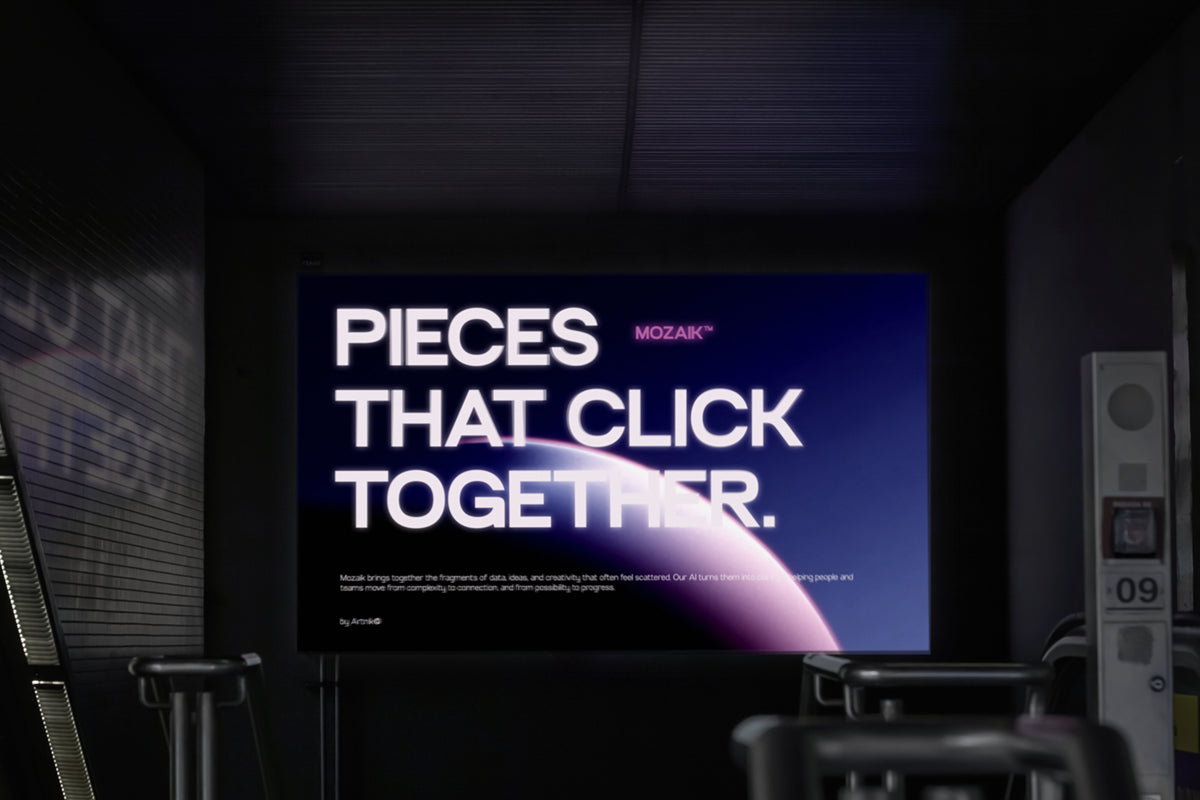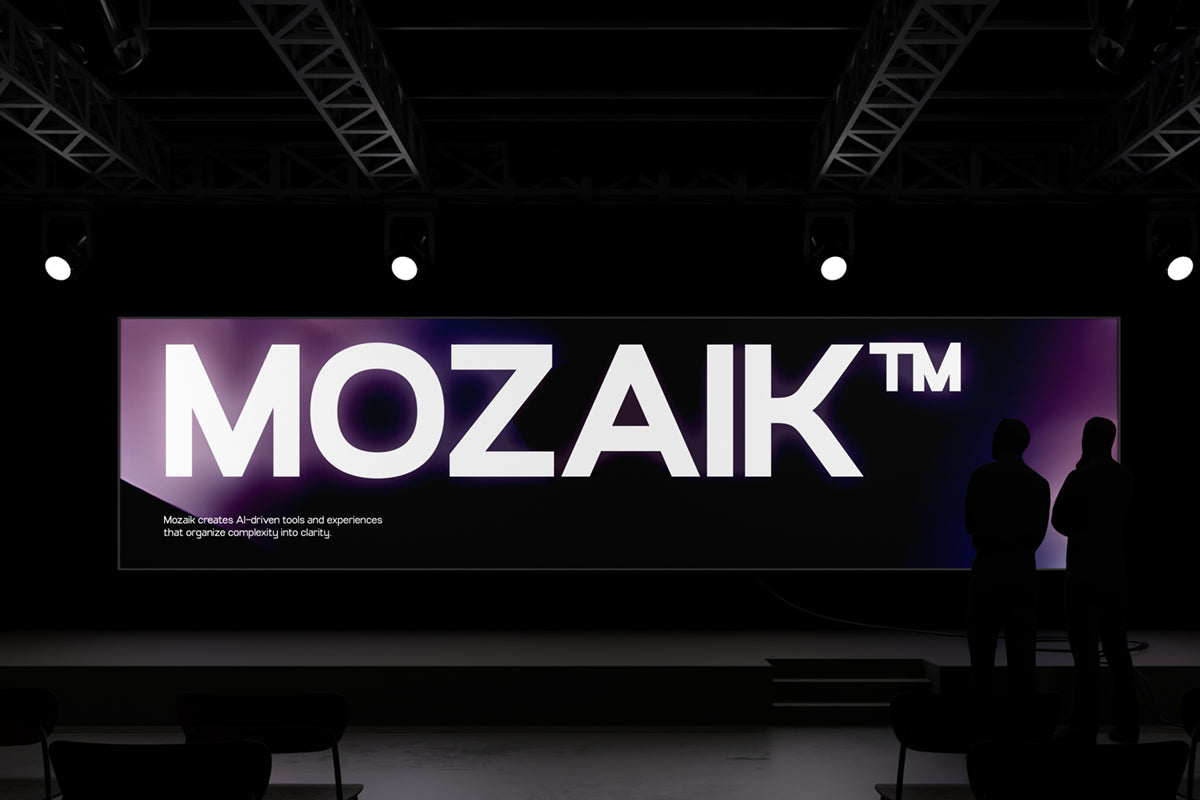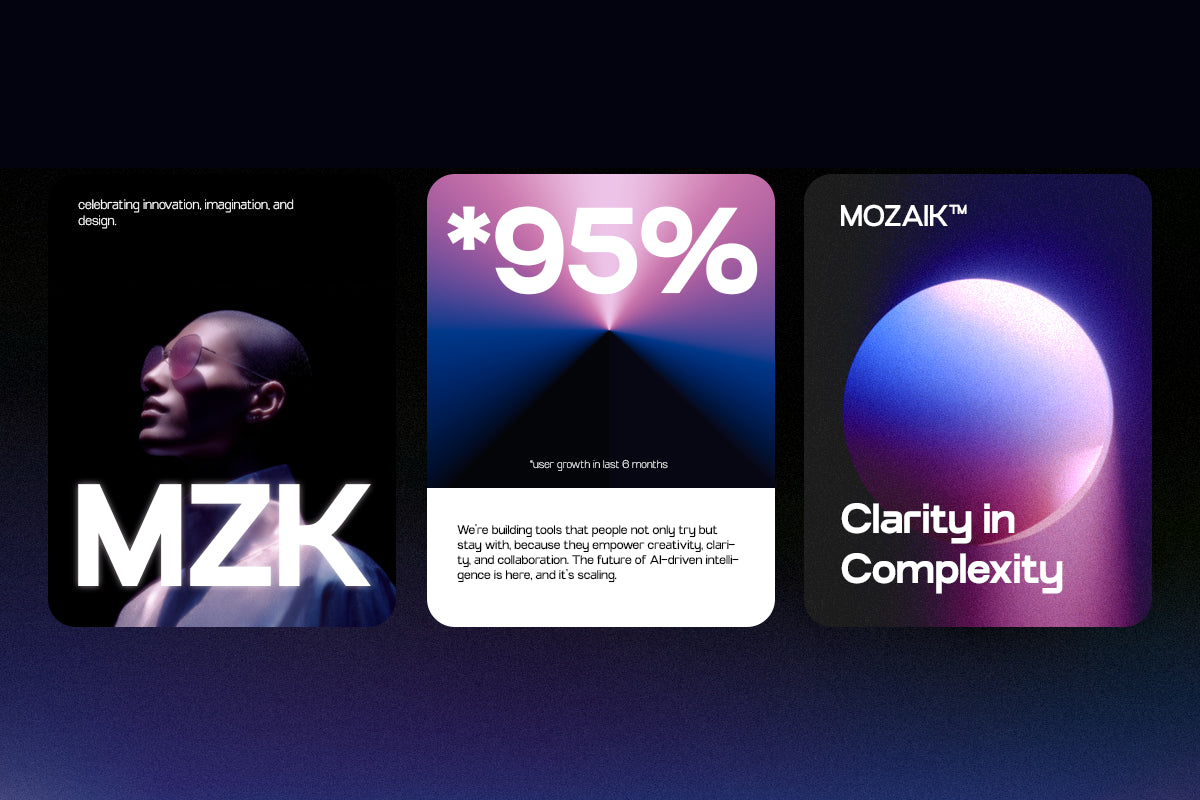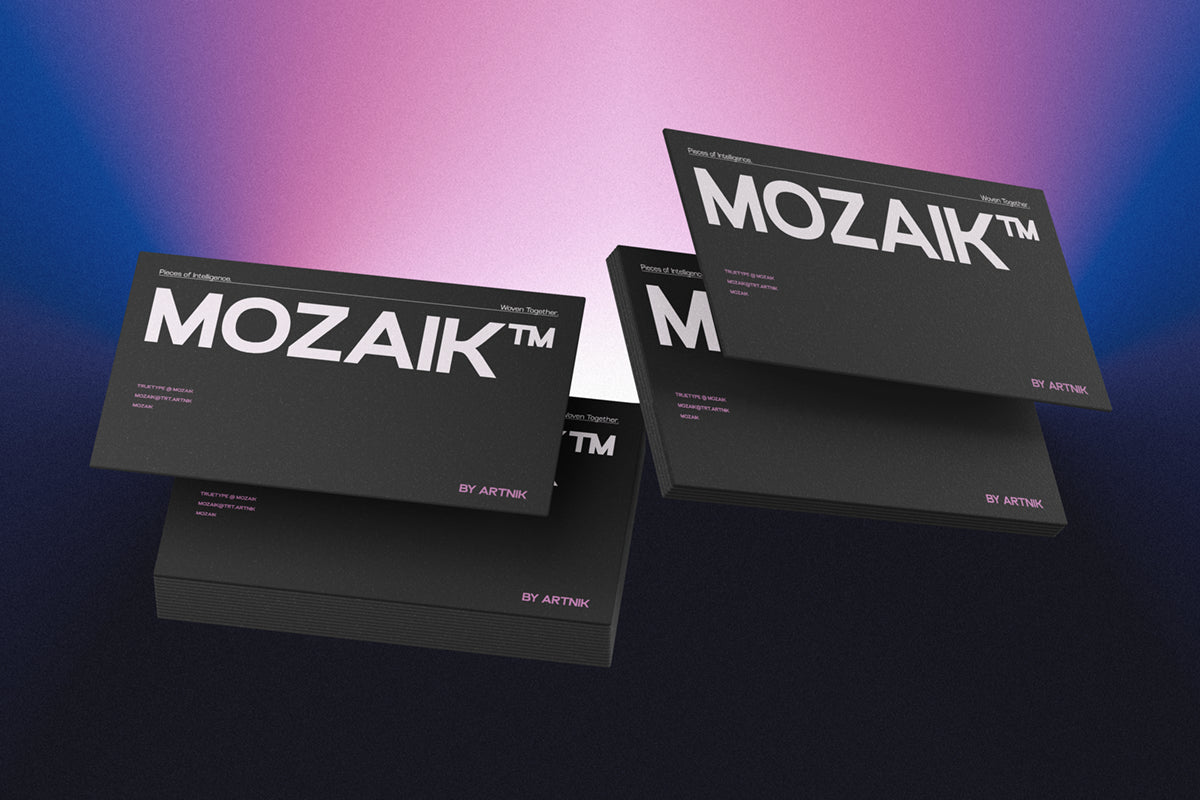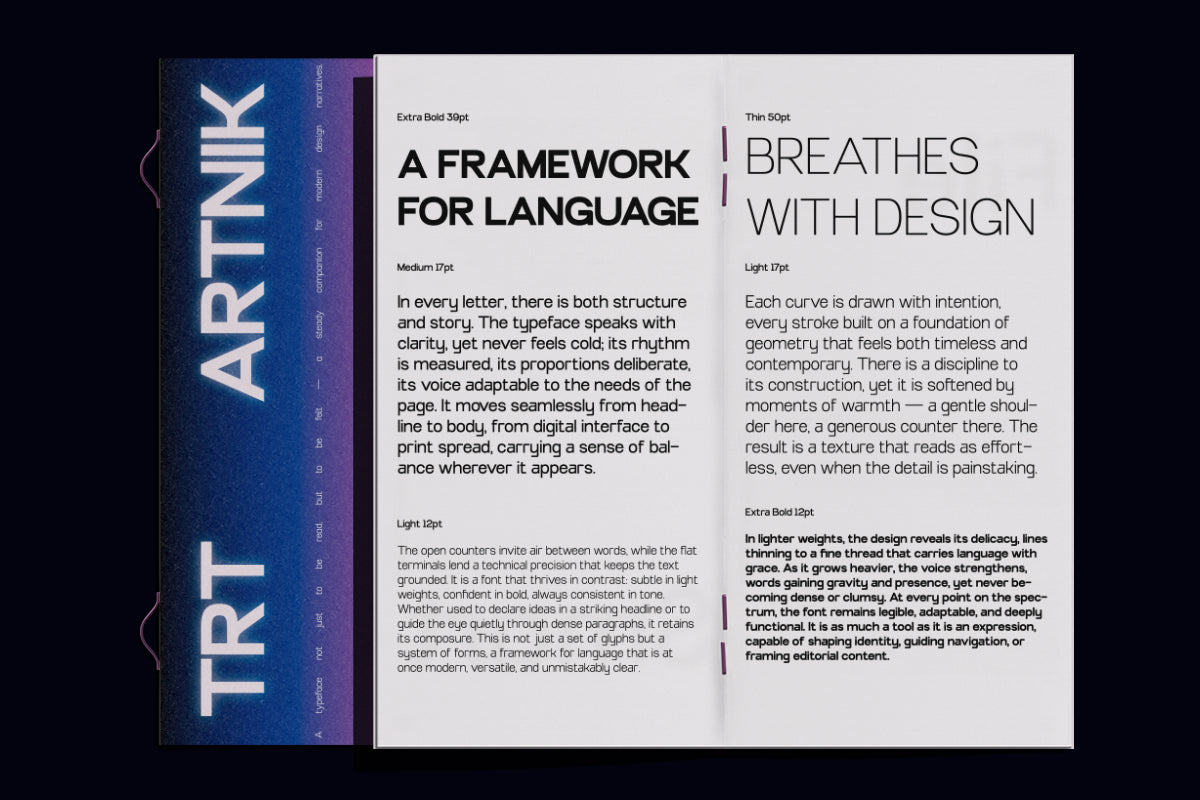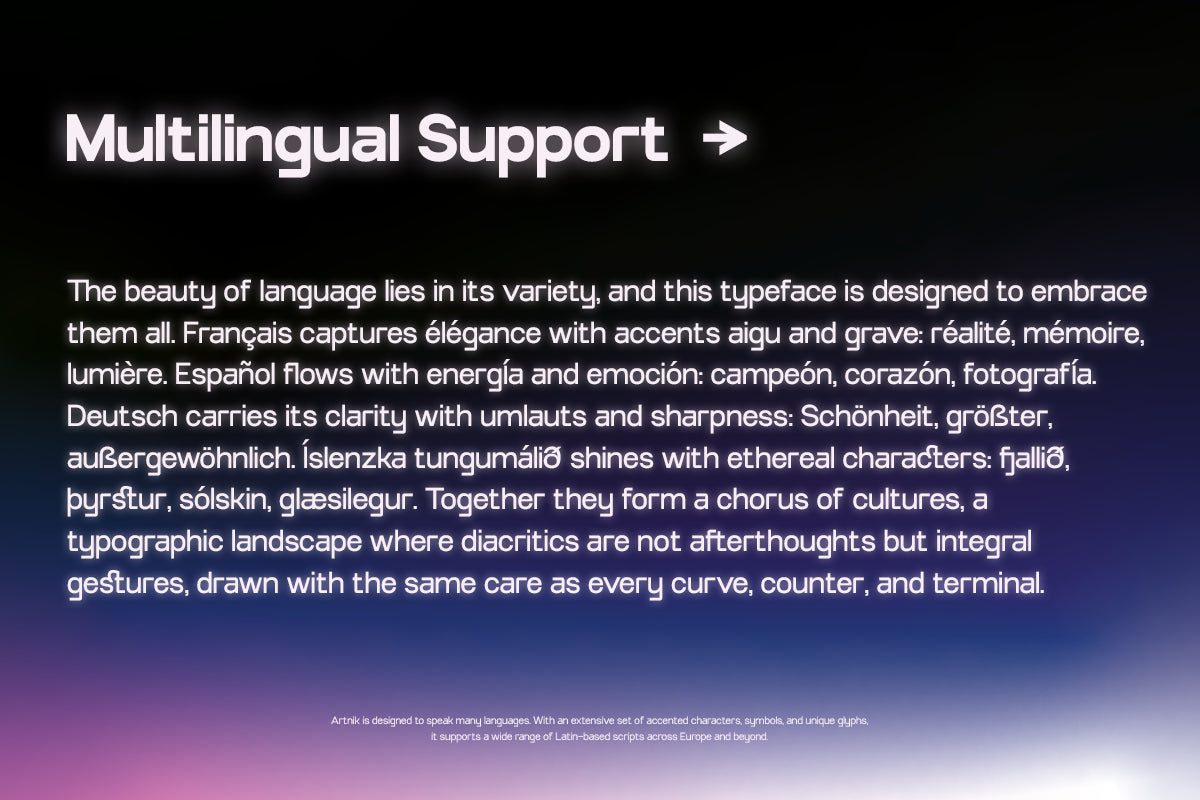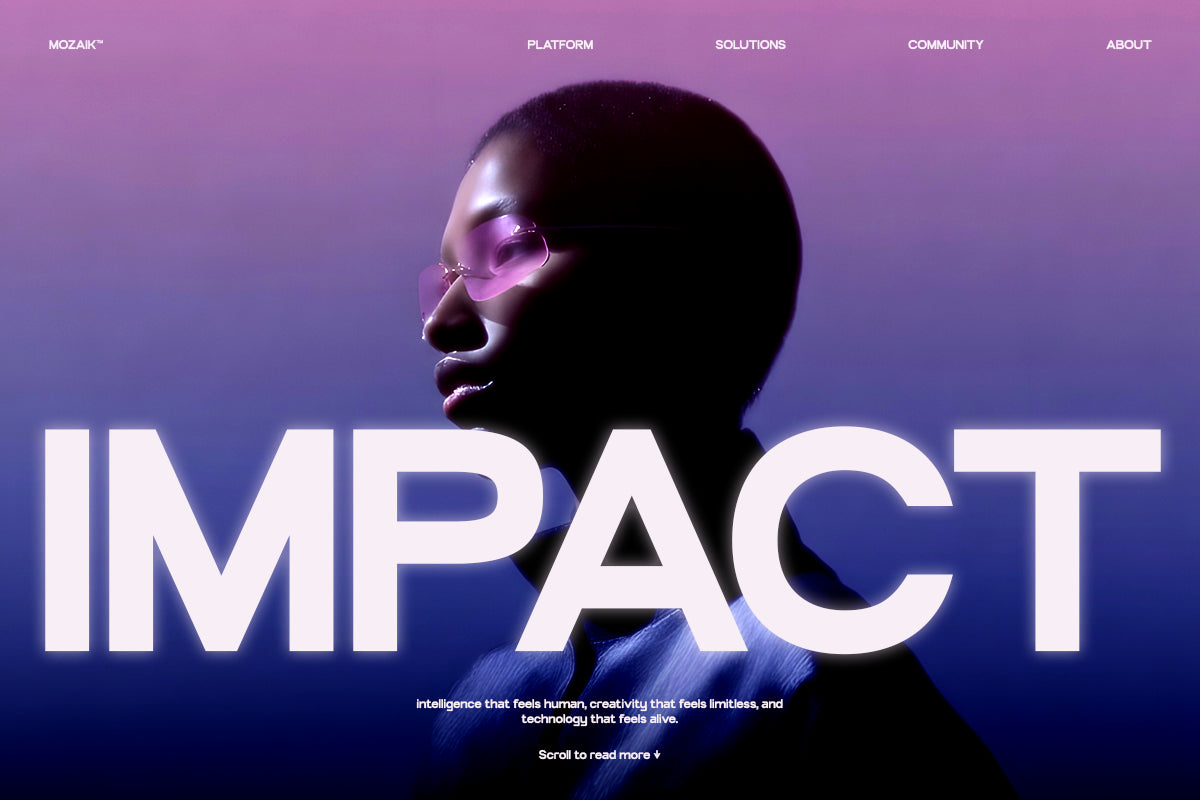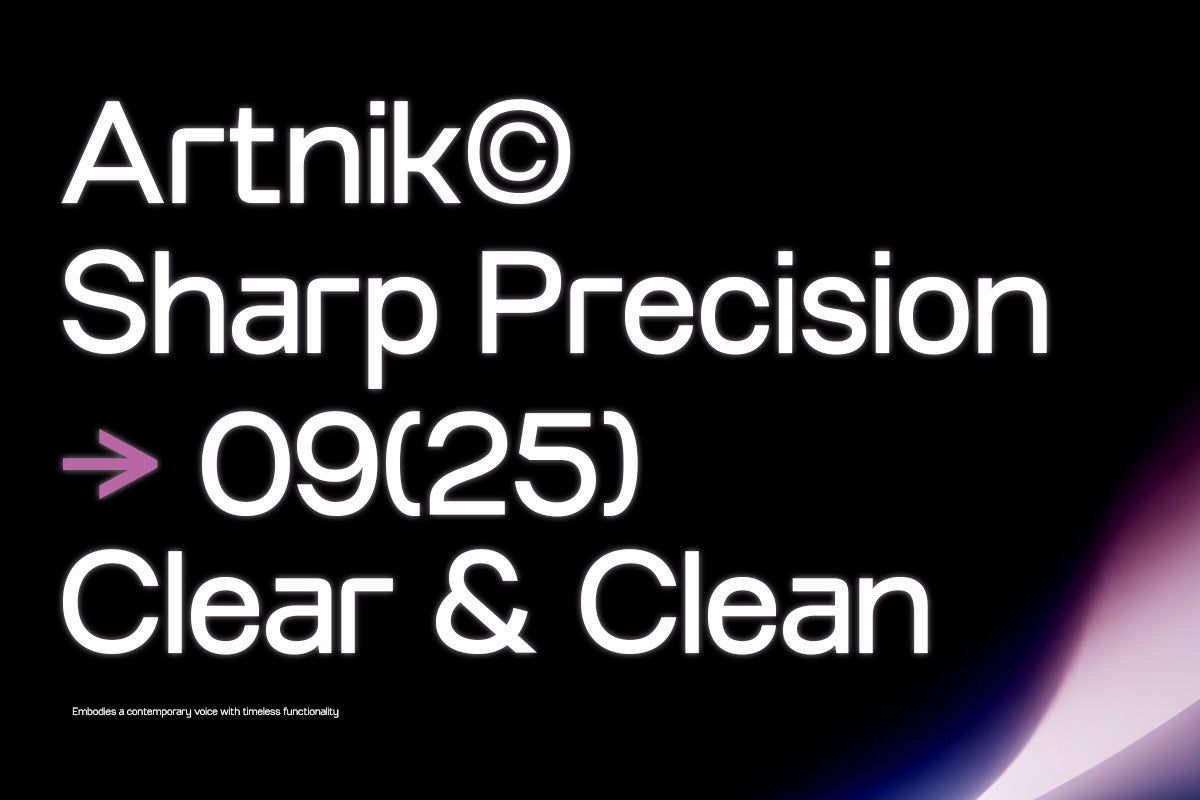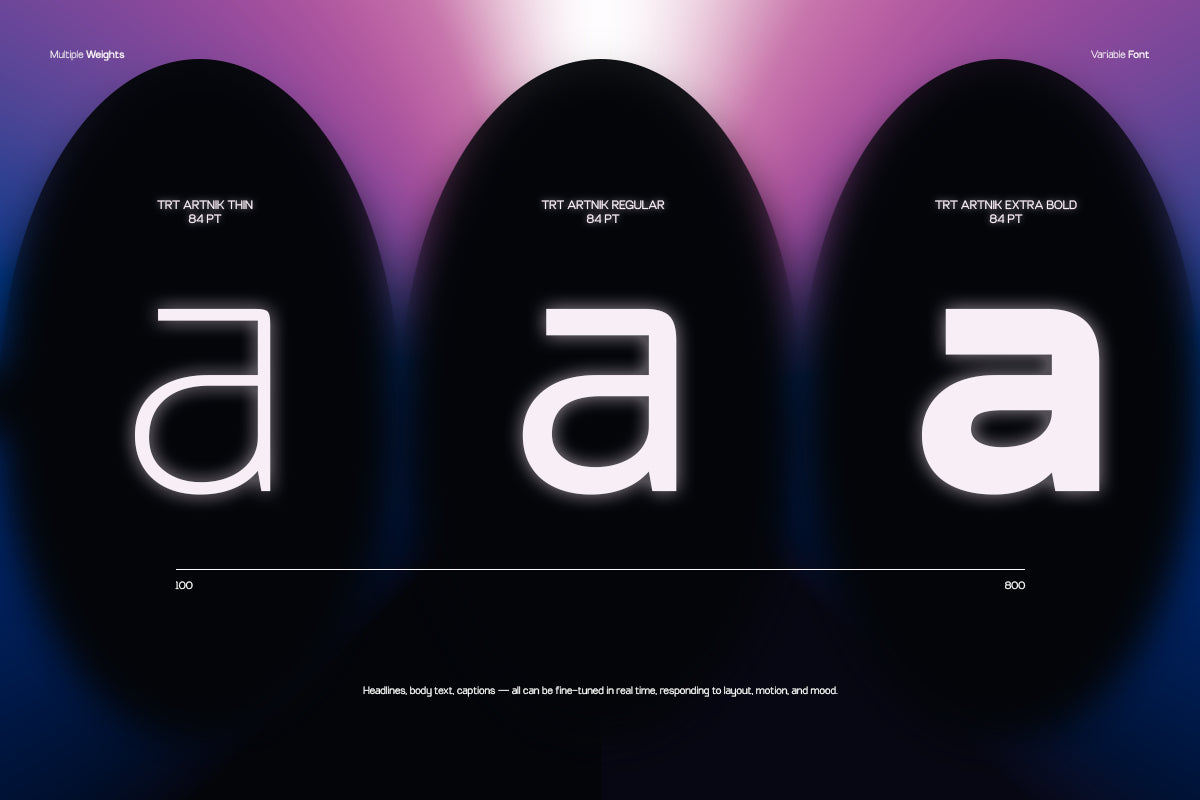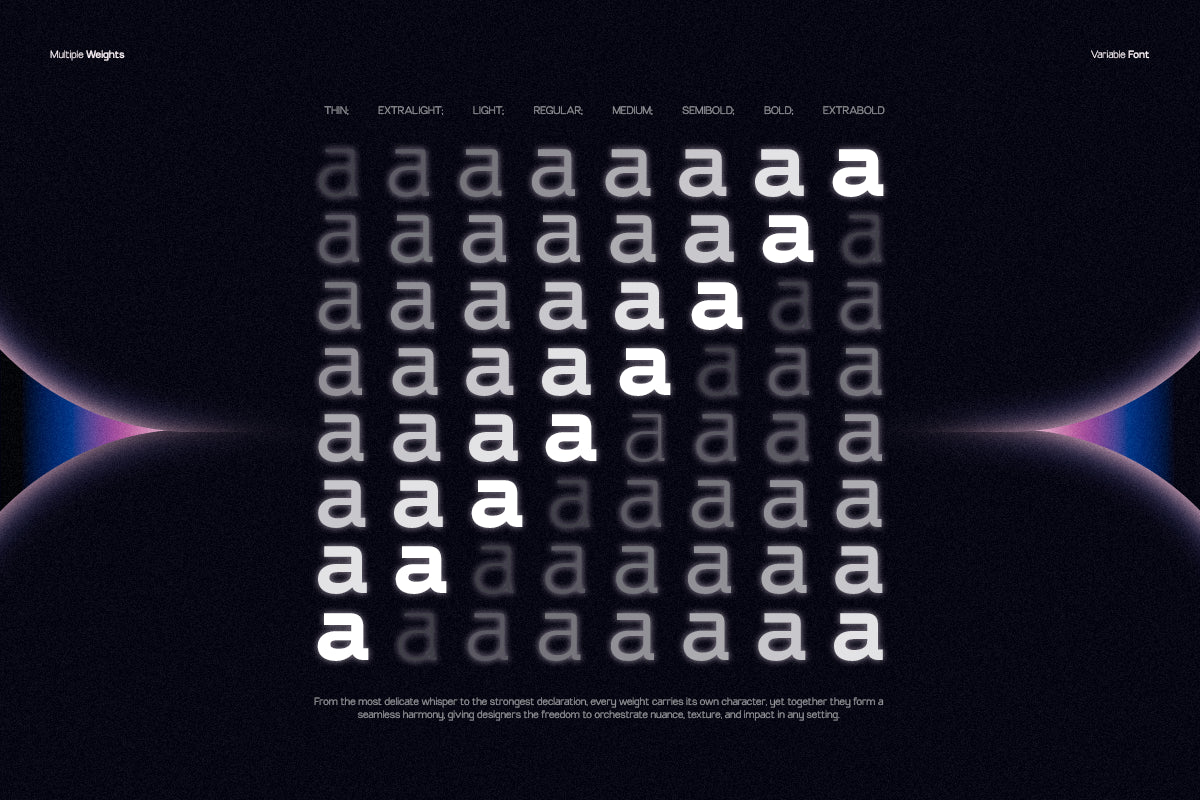
TRT Artnik – Modern Geometric Sans Serif Typeface
TRT Artnik is a modern geometric sans serif typeface that combines a clean, balanced structure with subtle character details. Designed for versatility, it is suitable for a variety of design projects, offering a clear and functional typographic solution.